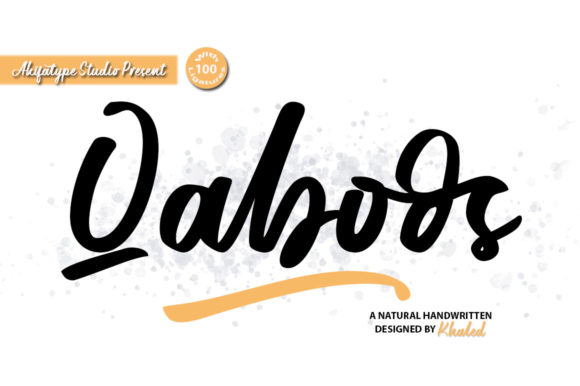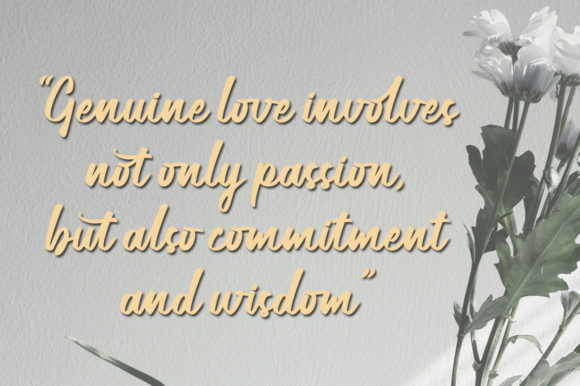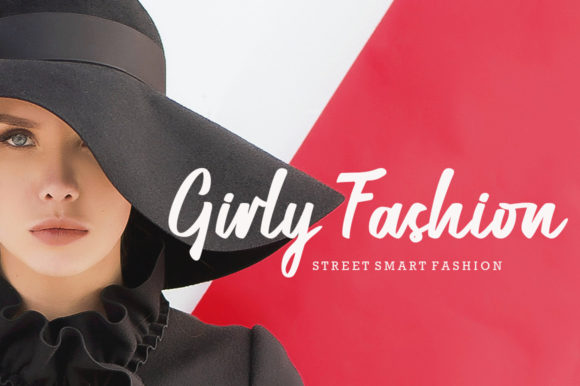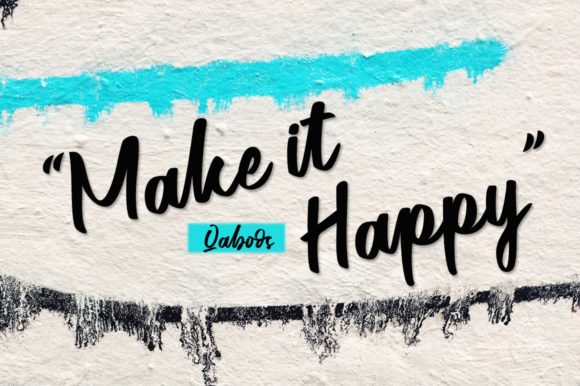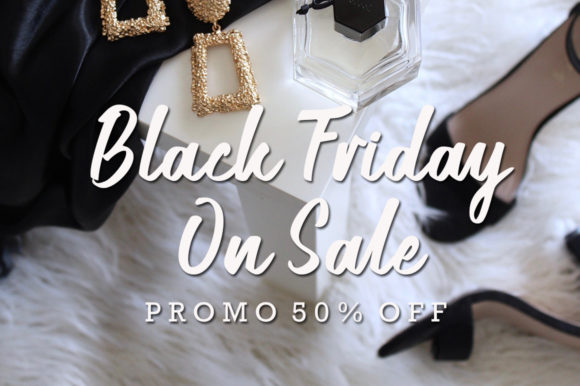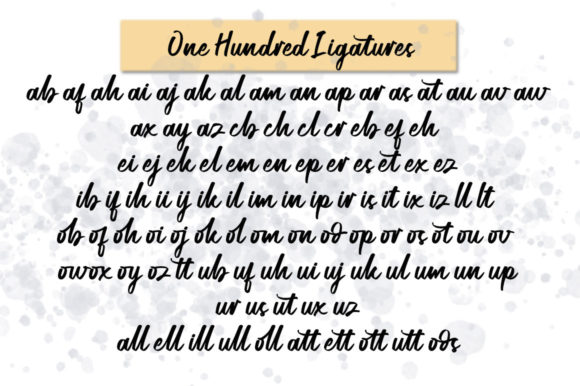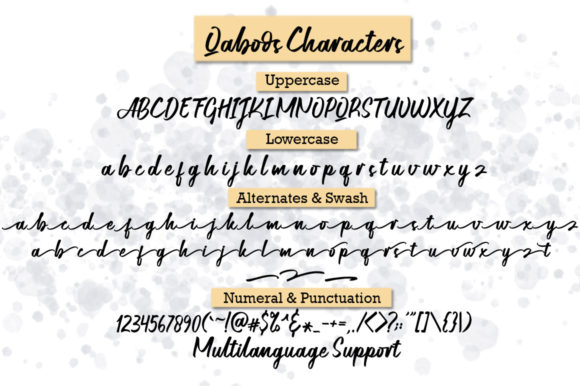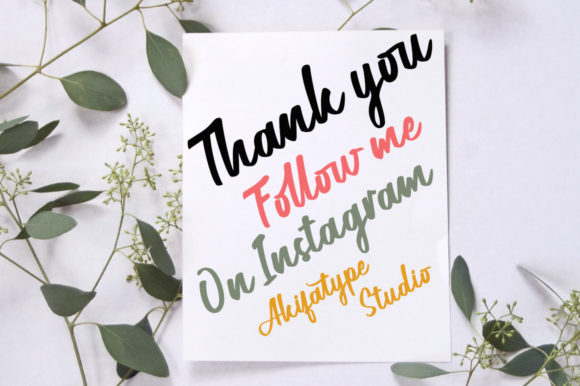
Qaboos Font
About Qaboos Font
Qaboos is a chic and trendy handwritten font. Whatever the topic, this font will be a wonderful asset to your font library, as it has the potential to enhance any creation.